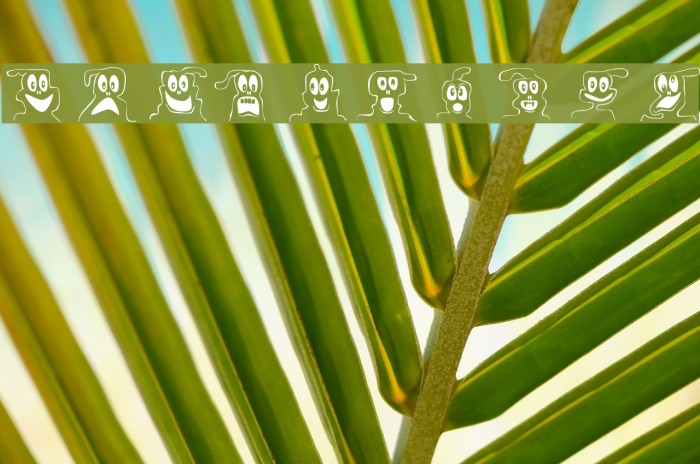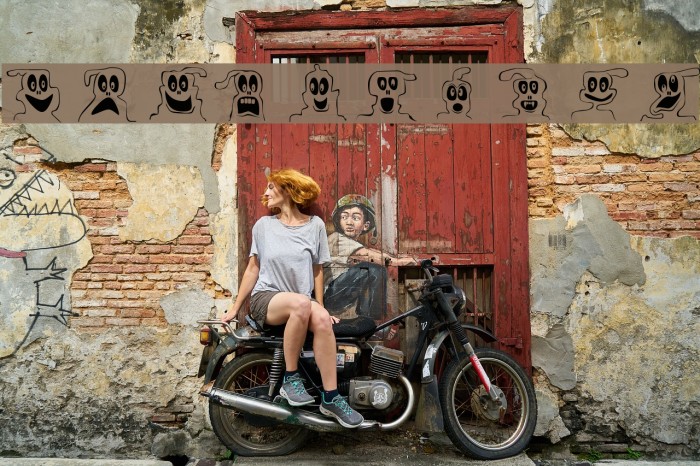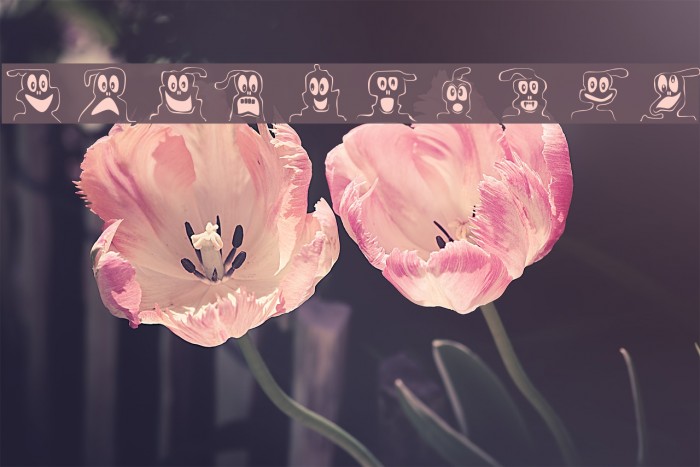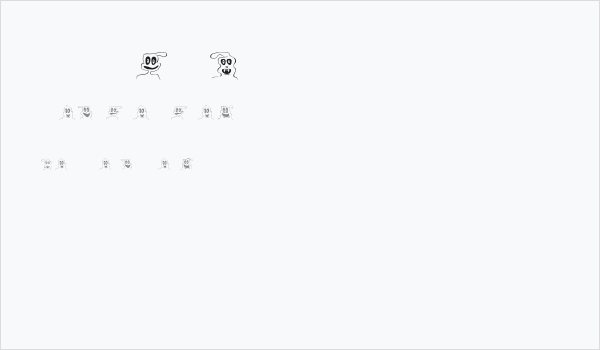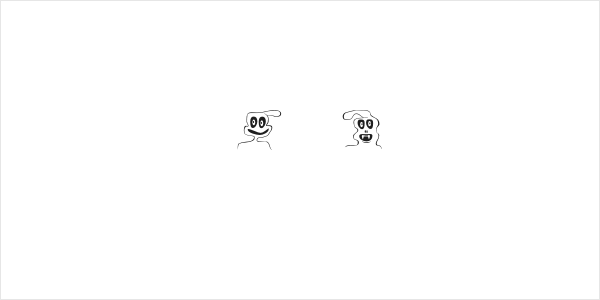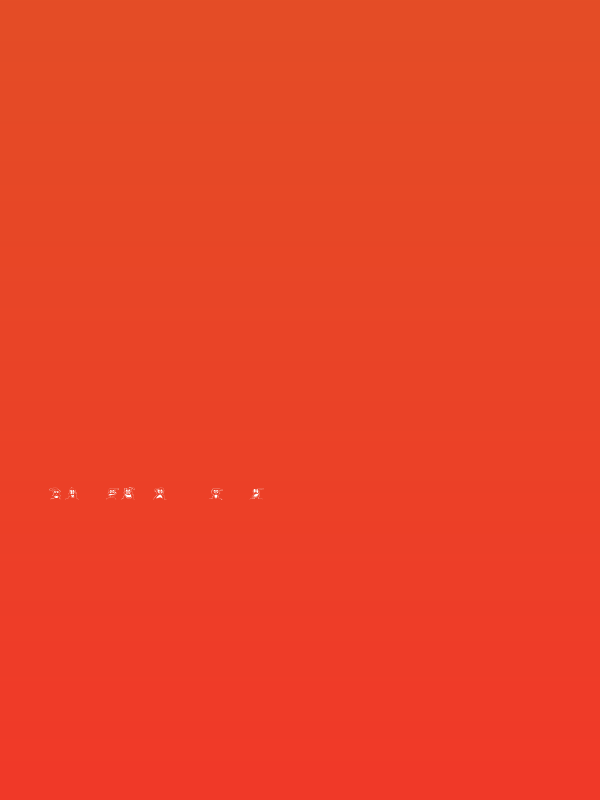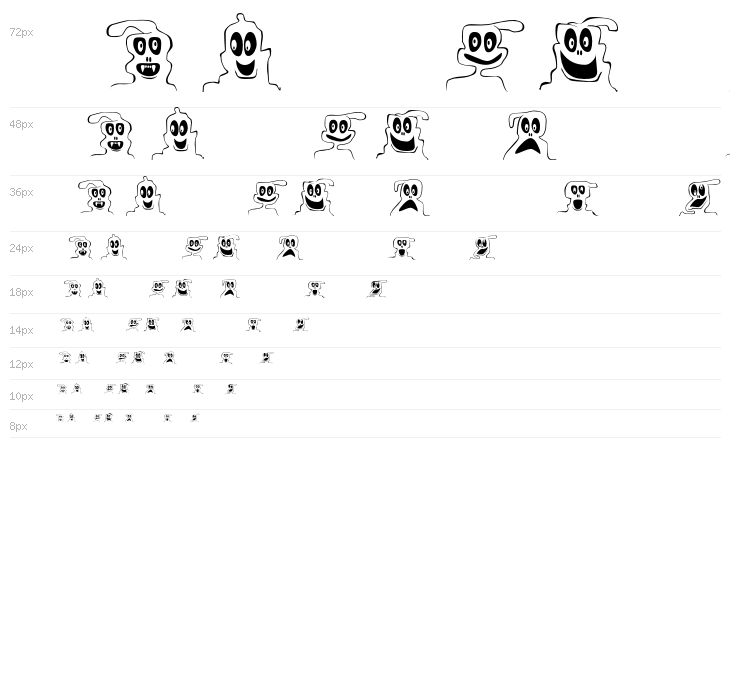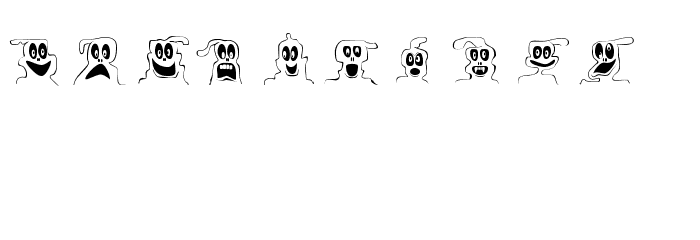
FE10LilGhosts Font
FE10LilGhosts Description
This is not a traditional font but rather a series of playful ghost illustrations. Each character is depicted as a unique ghost with varying expressions and features, creating a whimsical and animated feel. The designs are characterized by bold outlines and exaggerated facial features, giving each ghost a distinct personality. These illustrations are more suited for decorative purposes rather than textual communication.
| Use Case | Decorative illustrations, Themed graphics |
| Proposed Projects | Ideal for Halloween-themed designs, children's books, or playful graphic projects. |